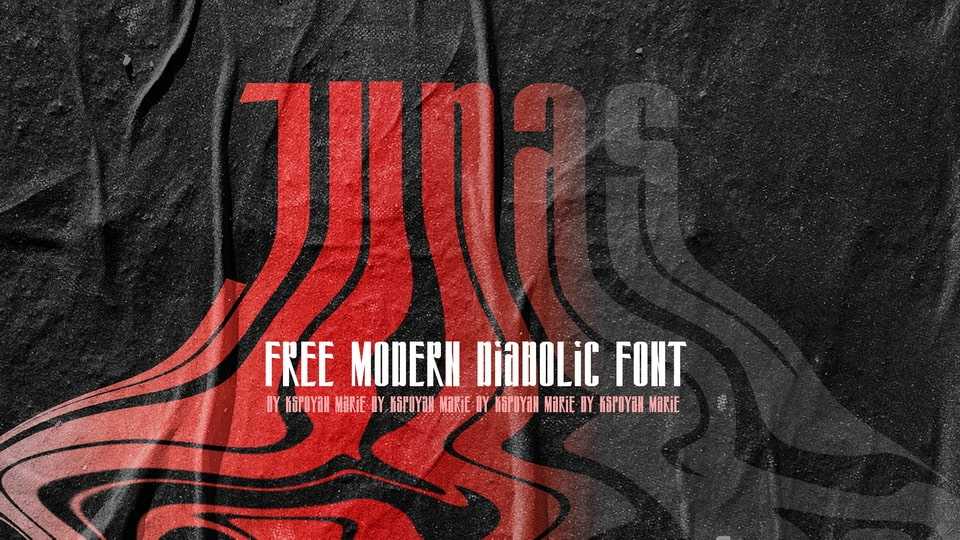
Download Judas font, a dark, mysterious typeface designed to evoke a sense of enigma and mystique in your designs. Judas font is all about sharp, intricate details and a touch of shadowy elegance, making it perfect for designs that demand an air of secrecy and suspense.
Designer: Mari Kspoyan